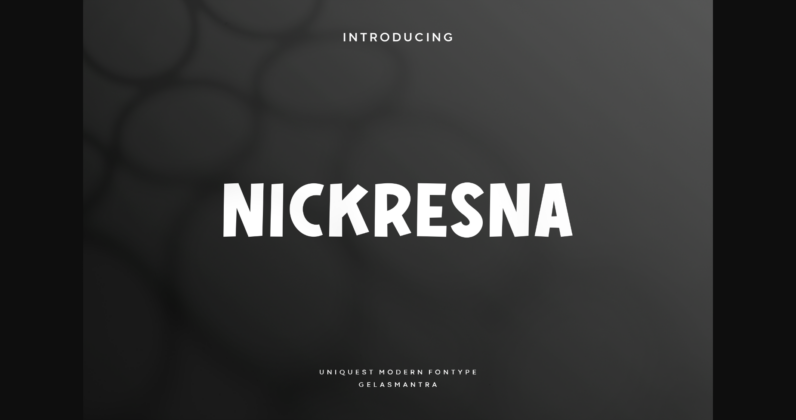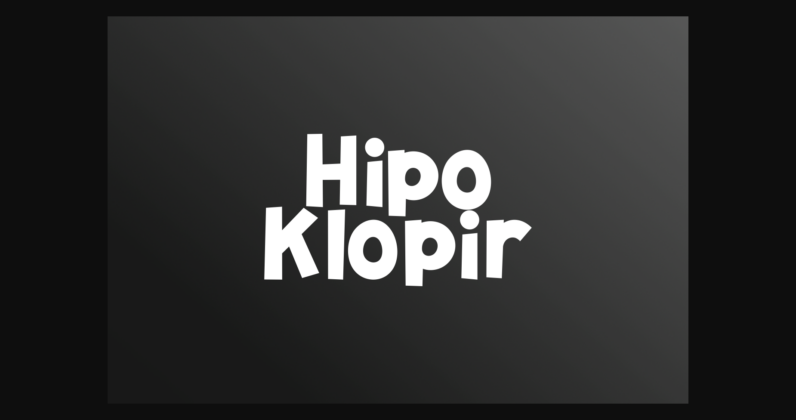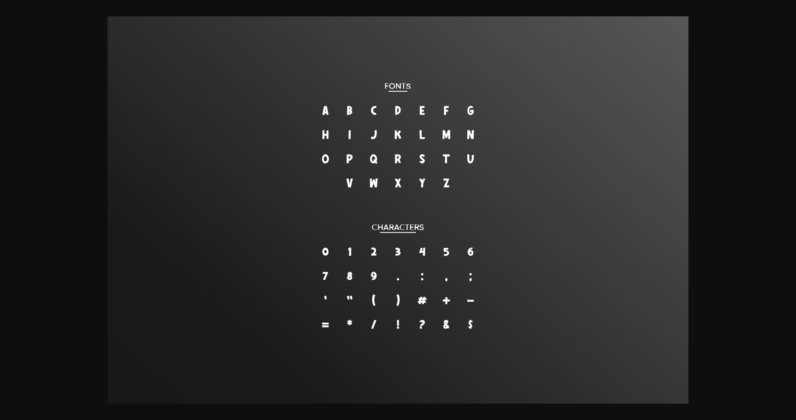
Nickresna Font
About Nickresna Font
Nickresna font is a sans serif font made in the style of children’s handwriting with a little improvisation in the uppercase mode and dynamic touch to the lowercase. This font is perfect for anything related to food, children, children’s illustrations, book titles, website titles, video writing, or anything else.